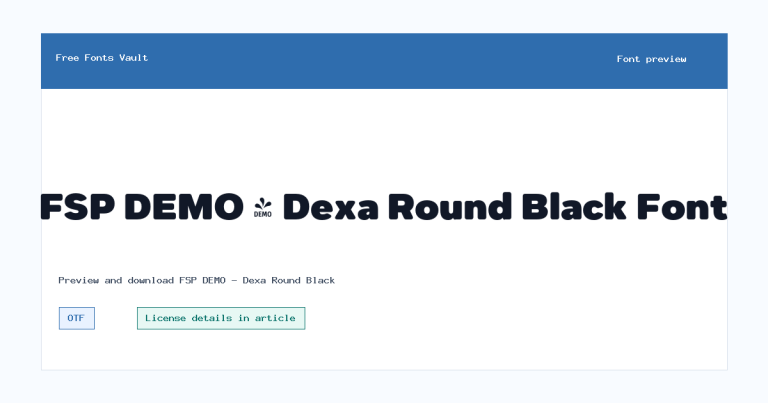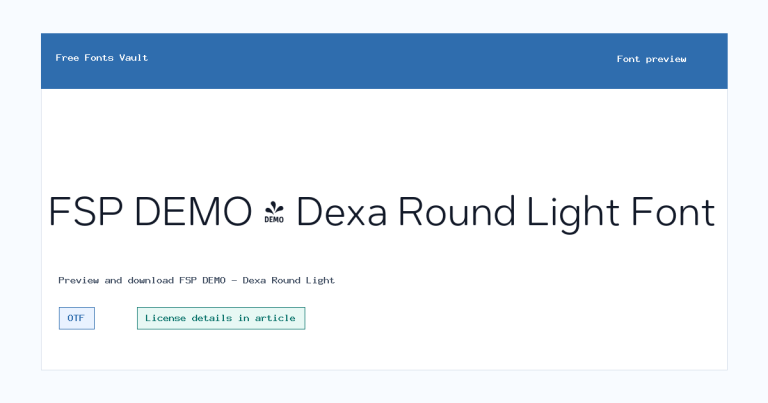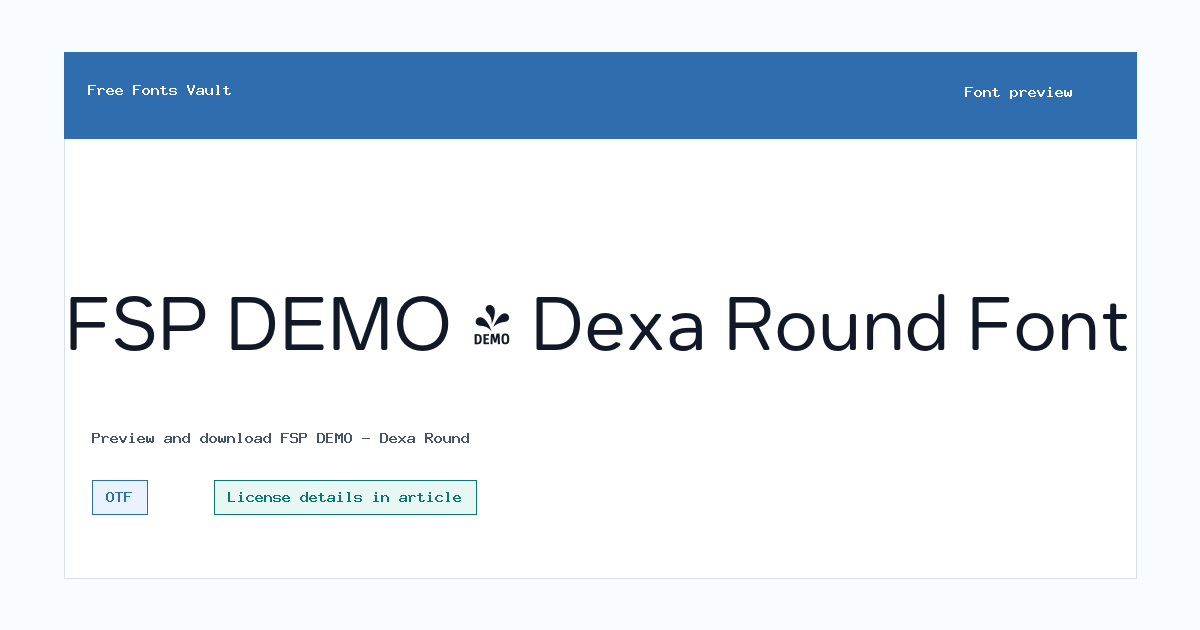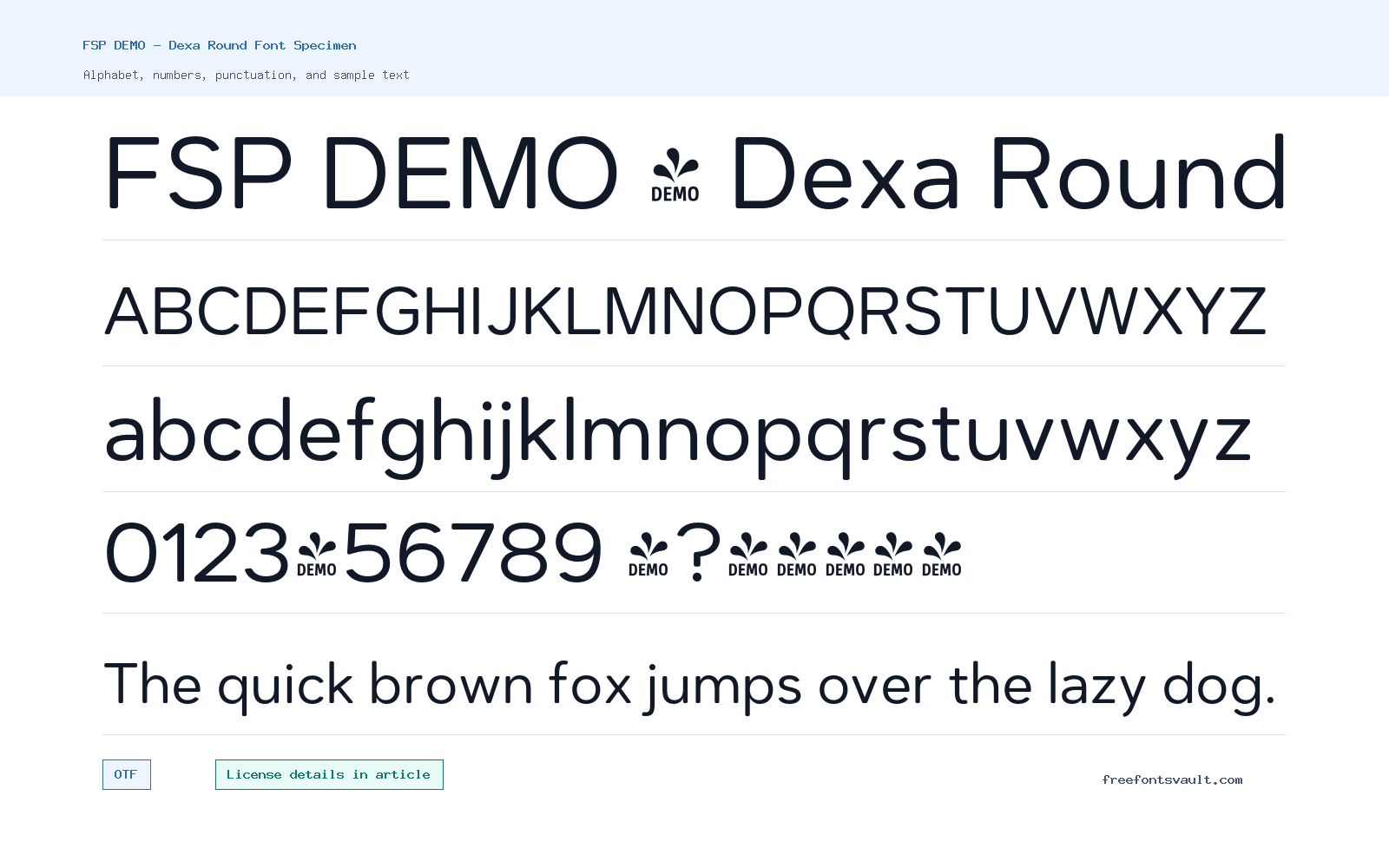
FSP DEMO - Dexa Round
- Designer Ceyhun Birinci
- Foundry Artegra
FSP DEMO – Dexa Round font.
FSP DEMO – Dexa Round is a rounded sans serif demo font family with regular and bold OTF files for quick testing in headings, labels, and short display text.
About FSP DEMO – Dexa Round
FSP DEMO – Dexa Round has a soft, rounded look that can make text feel more approachable than a sharp geometric sans. The family name and file names identify it as a demo release, so it is best treated as a preview font unless you confirm the full license from the original source. The available styles cover regular 400 and bold 700 weights, which gives visitors enough range to test basic hierarchy: regular for supporting text and bold for stronger titles or buttons.
Use the preview box to test the exact words you plan to set, especially if your design depends on clean spacing or friendly rounded shapes. Try short brand names, app headings, badges, navigation labels, and social graphics. Rounded sans fonts can look warm and modern in small blocks, but they may lose impact if stretched into long paragraphs. For body copy, pair it with a simple neutral sans or a readable serif, and keep Dexa Round for headings, callouts, or interface accents where its shape is easier to notice.
- Rounded sans serif appearance suited to short display text and interface-style labels
- App mockups, web headings, buttons, badges, and navigation labels
- Posters, social graphics, logo drafts, and short branding tests where a rounded tone fits
Start by testing the bold weight for headlines and the regular weight for smaller supporting text. Keep line lengths short, increase spacing if the rounded forms feel crowded, and avoid relying on it for dense reading until you have checked readability at your target size.
What kind of design work suits this font?
It fits short, friendly display settings such as headings, buttons, badges, app screens, social posts, and logo drafts.
Can I use it for long paragraphs?
It is safer to use it for short text first. For long reading, test it carefully at the final size or pair it with a more neutral body font.